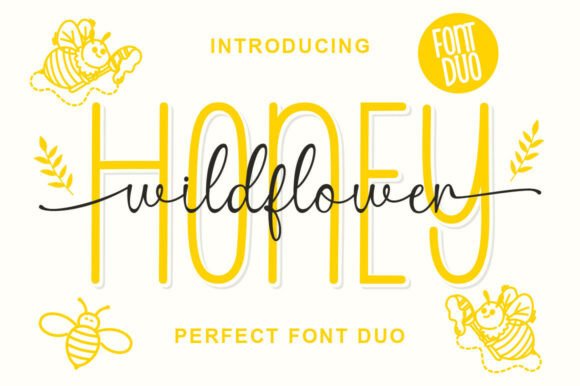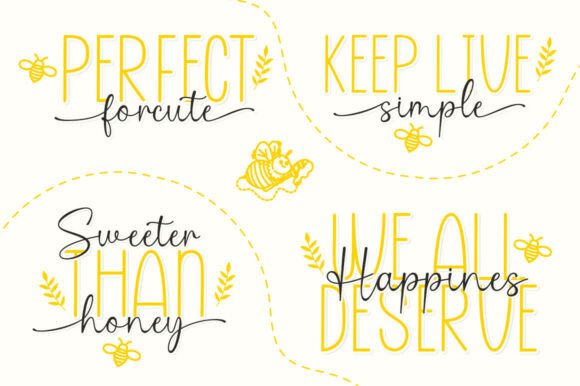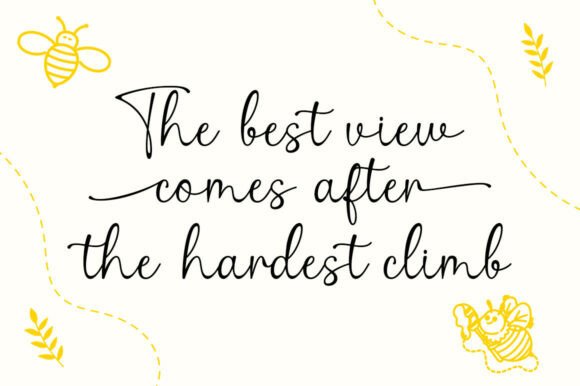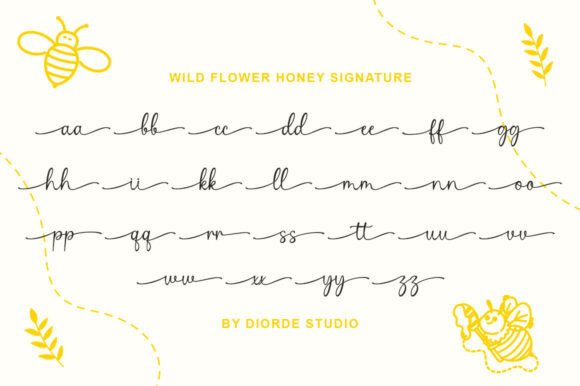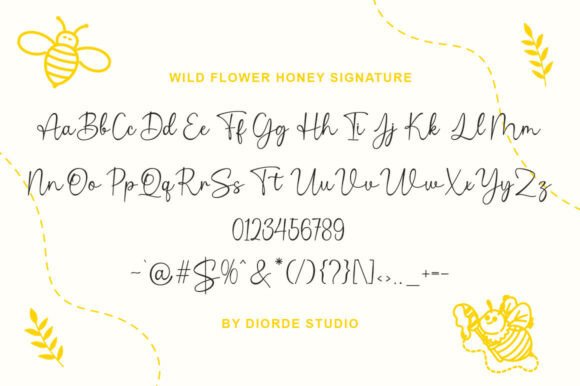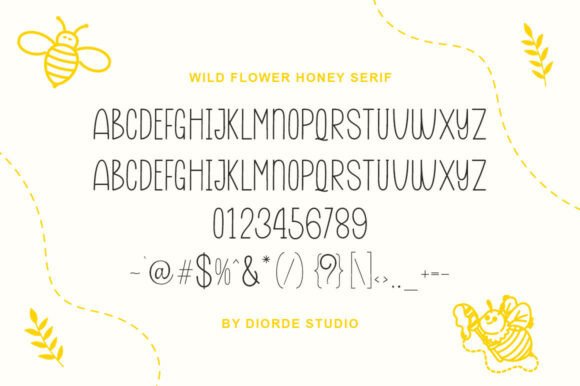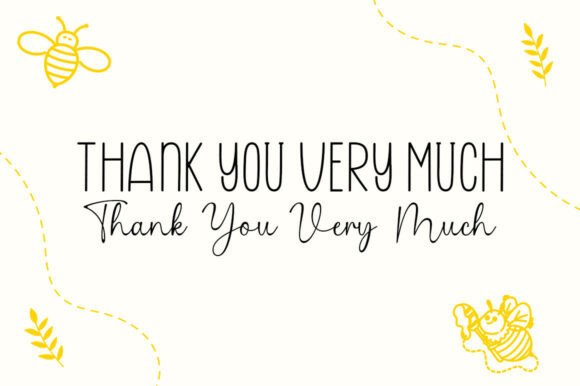
Wild Flower Honey Duo Font
Honey Wildflower — The Perfect Font Duo
Honey Wildflower is a charming and joyful font duo that perfectly blends playful simplicity with elegant handwritten style. The combination of a tall, clean sans-serif (Honey) and a smooth, flowing script (Wildflower) creates a delightful balance — sweet, modern, and full of personality.
The Honey font is bright and cheerful with its tall, rounded letters — perfect for headlines, quotes, and branding that needs a friendly and approachable vibe.
The Wildflower script complements it beautifully, adding a personal, hand-lettered touch with soft curves and graceful connections. Together, they form a naturally harmonious pair that feels organic and uplifting.
Ideal for logos, invitations, packaging, social media, and DIY projects, this duo brings warmth and positivity to every design. Add a dash of sweetness and a hint of elegance — Honey Wildflower makes your words bloom with personality.
– Sans Serif + Handwritten Script Pairing
– Perfect Contrast for Modern Designs
– Clean, Friendly, and Versatile Aesthetic
– Uppercase, Lowercase, Numbers & Punctuation